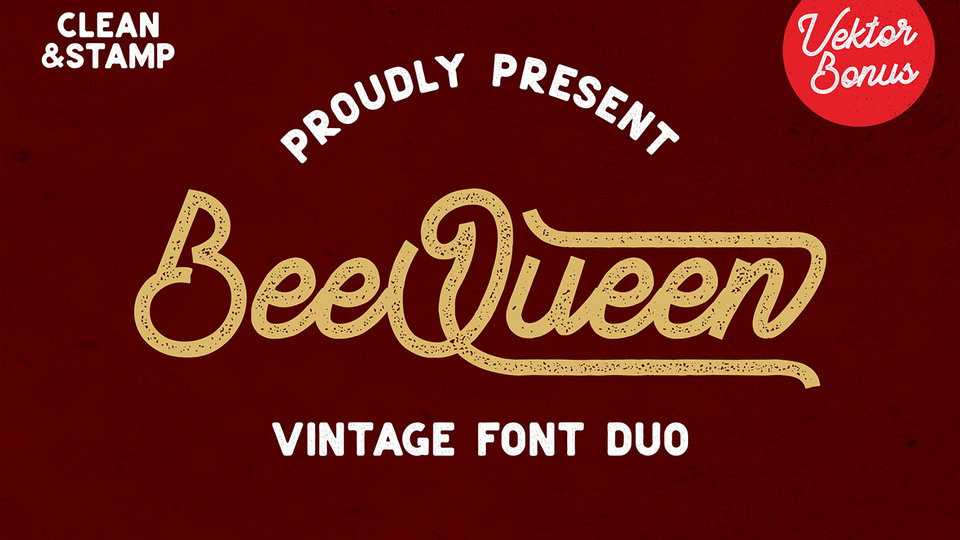
Download BeeQueen font, an amazing vintage scriptfont with a beautiful feel. BeQueen script is perfect for logotype, apparel, branding, packaging, advertising and more.
Designer: Ergibi Studio